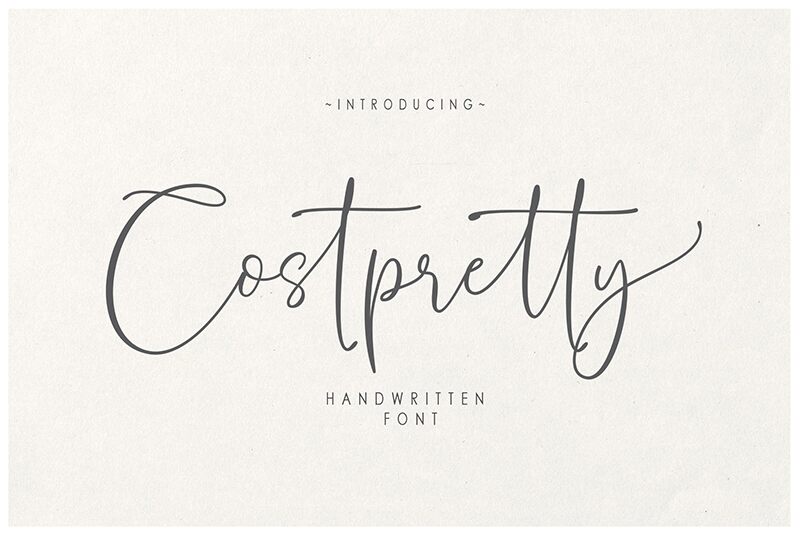
Costpretty is a beautiful handwritten font designed by moriztype. It has a light, airy feel and makes a great choice for projects that require a unique, personal touch. It can be used to add personality to invitations, greeting cards, logos or posters. Costpretty is also perfect for creating eye-catching headlines and other creative texts. Its light weight makes it an ideal addition to any project that requires elegance and charm.